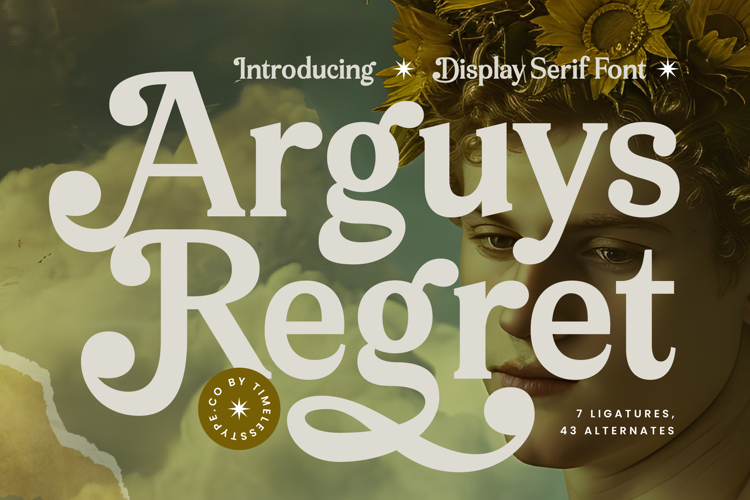
Arguys Regret - Display Serif Font
The Arguys Regret Typeface is a display serif font with a bold, decorative style and a strong classic-modern character. Featuring 7 ligatures and 43 stylistic alternates, this typeface allows designers to explore unique, expressive, and elegant typography. Its thick letterforms, accented with swirling ornamental terminals, evoke a dramatic retro feel with a contemporary twist, making it the perfect choice for artistic, theatrical, and stylish design projects.
This font works beautifully in editorial design, such as fashion magazines, art features, and exclusive book covers. The combination of alternates and ligatures offers expressive typographic variations, bringing layouts to life with rich detail.
In branding and packaging, Arguys Regret is ideal for cosmetics, perfumes, artisan beverages, luxury fashion, and exclusive lifestyle brands. Its refined and artistic aesthetic ensures a memorable and distinguished visual identity.
For entertainment and promotional design, this typeface shines on movie posters, music album covers, art festival branding, and cultural event promotions. Its decorative character enhances visual storytelling with a strong dramatic presence.
In the field of digital design, Arguys Regret performs exceptionally well in social media content, website branding, digital advertising, and motion graphics. With multilingual support, it adapts seamlessly to global projects while maintaining consistent visual appeal.
In short, Arguys Regret Typeface is a display serif font designed to bring together classic-modern aesthetics with decorative and theatrical flair. Perfect for editorial, branding, packaging, entertainment, advertising, and digital campaigns, this font transforms typography into an iconic, stylish, and expressive design element.